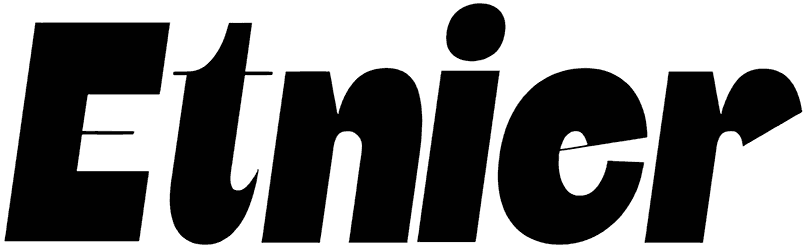
Etnier Font
Featuring heavy letters with a strong tone, Etnier doesn’t let you get stuck designing trendy logos that radiate power and superiority. It’s just fascinating how it makes it look so easy to draw attention with its distinct characters to your posters and signs.
The only issue is that this sans-serif font consists only of letters and leaves out numbers and punctuation. So if you need such elements in your project, you’d better choose some other bold font from RB’s library.